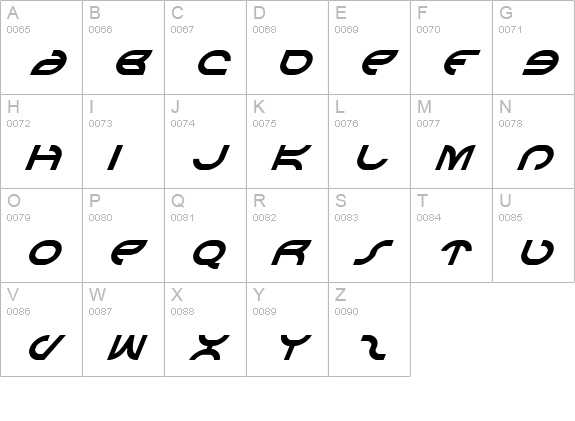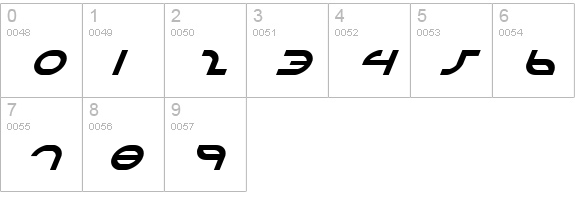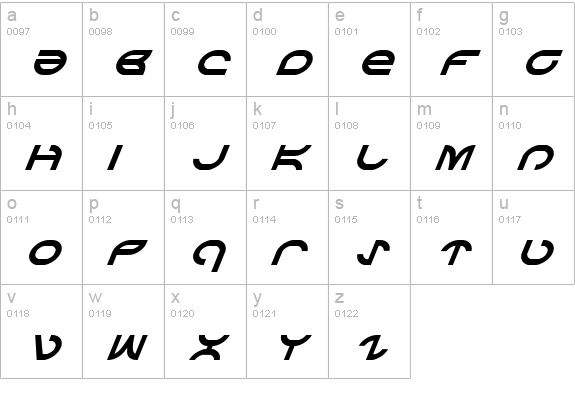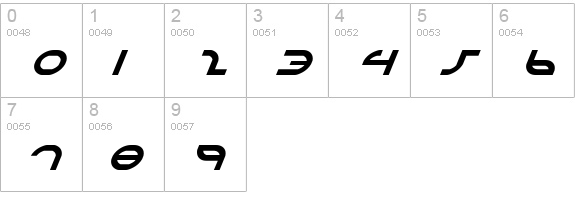
Aetherfox Italic Font Details
Aetherfox Italic is a distinctive, italic variant in the Aetherfox typeface family \xE2\x80\x94 well suited to design and typography projects.
Aetherfox Italic font is a sleek and modern typeface that exudes sophistication and elegance. With its clean lines and stylish curves, this font is perfect for adding a touch of class to any design project. The italic style gives it a dynamic and fluid appearance, making it ideal for conveying a sense of movement and energy. What sets Aetherfox Italic font apart is that it is available for free download at FontsMarket.com. This means that you can easily access this high-quality font without any cost, making it a valuable addition to your collection of design resources. Whether you're working on a website, branding materials, or any other creative project, Aetherfox Italic font is sure to elevate your design with its unique charm and versatility.